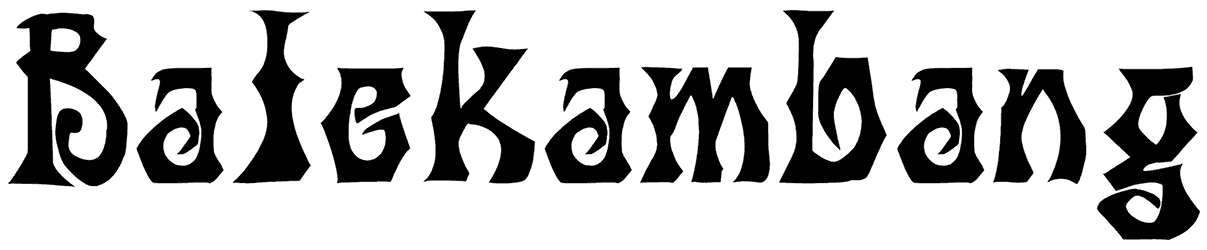
Balekambang Font
If you need a wonderful font to bring a sense of classic, drama, vintage, and dynamic to your graphic content, we would take the honor to introduce Balekambang to you. Since this Halloween font comes with curved characters, it can be suitable for designing a huge set of artwork like movie posters, headlines, book covers, editorial projects, and brochures.
Designed by: DKV 18 ISI Surakarta